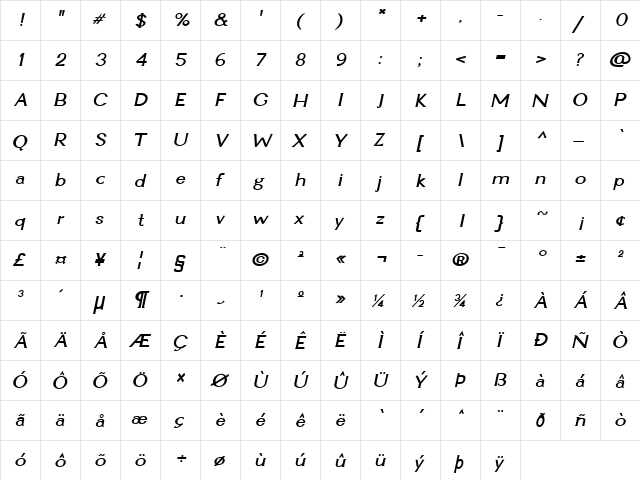
Ginger-Condensed Bold Italic
Design Context for Ginger-Condensed Typeface
Ginger-Condensed offers clean, dependable letterforms without strong stylistic allegiance, making it a practical choice for designers who need flexibility. Its italic angle brings a sense of urgency and motion to the letterforms. Its bold stroke weight gives it real presence on the page. The condensed width makes it efficient for tight spaces without sacrificing legibility.
Pro Tip: Try Ginger-Condensed for annotation and caption copy alongside an upright companion — the contrast in angle creates a dynamic but ordered typographic system.